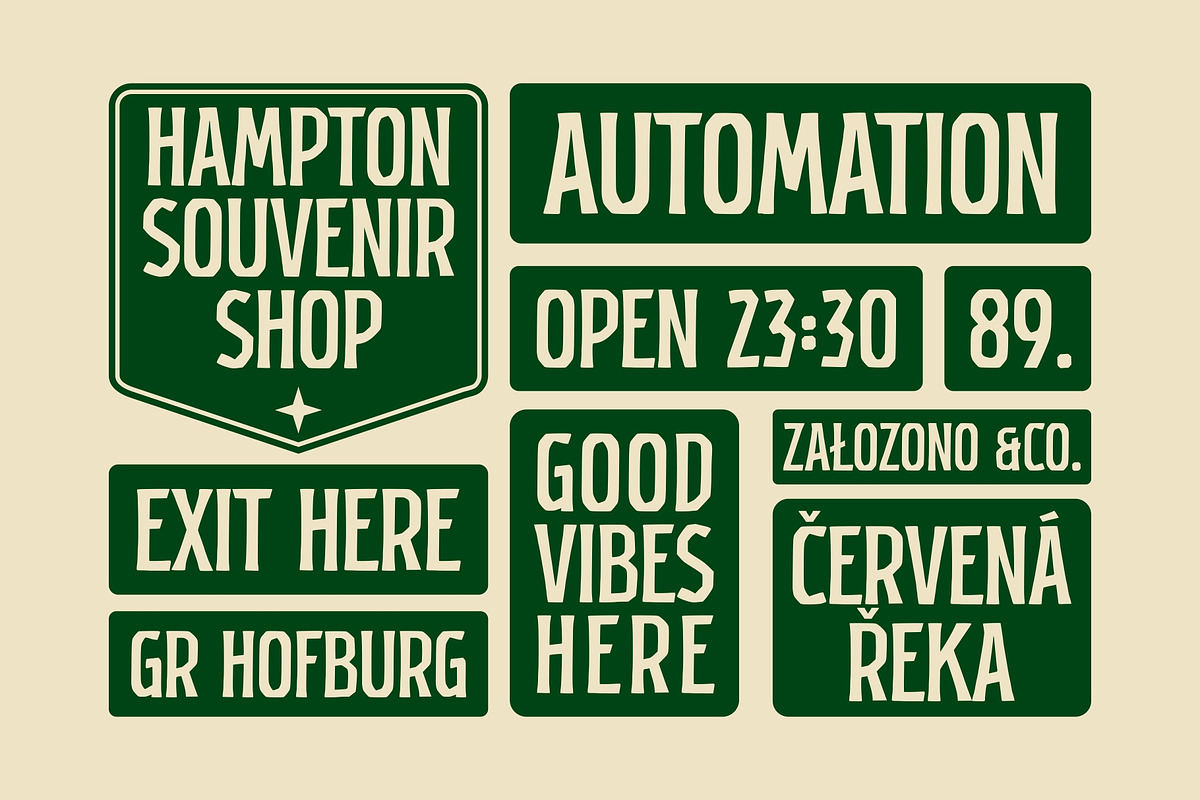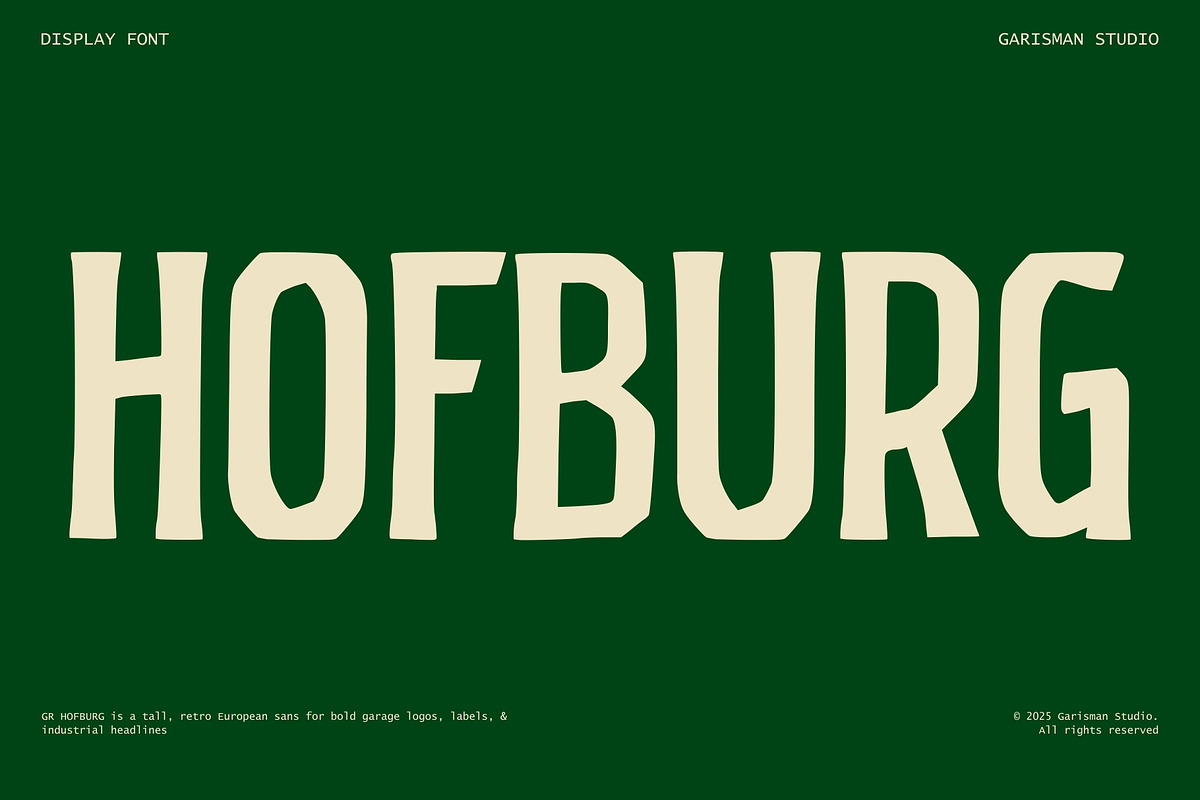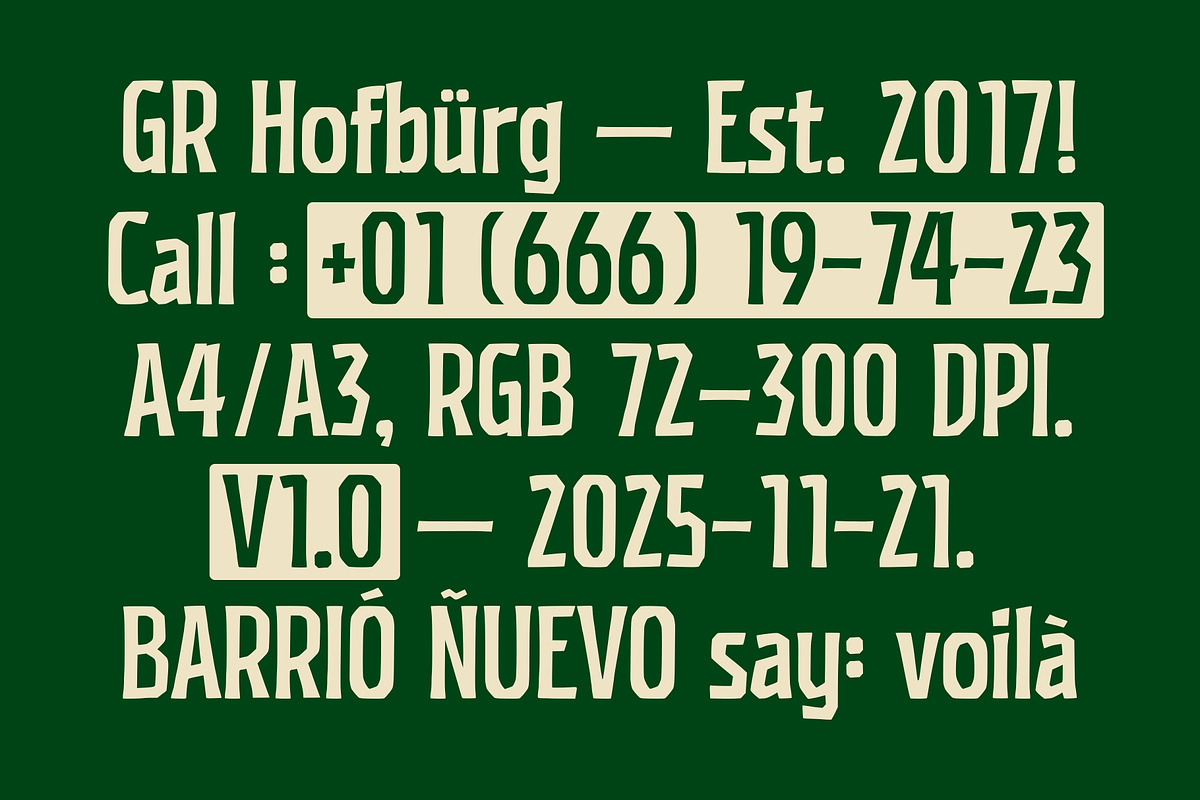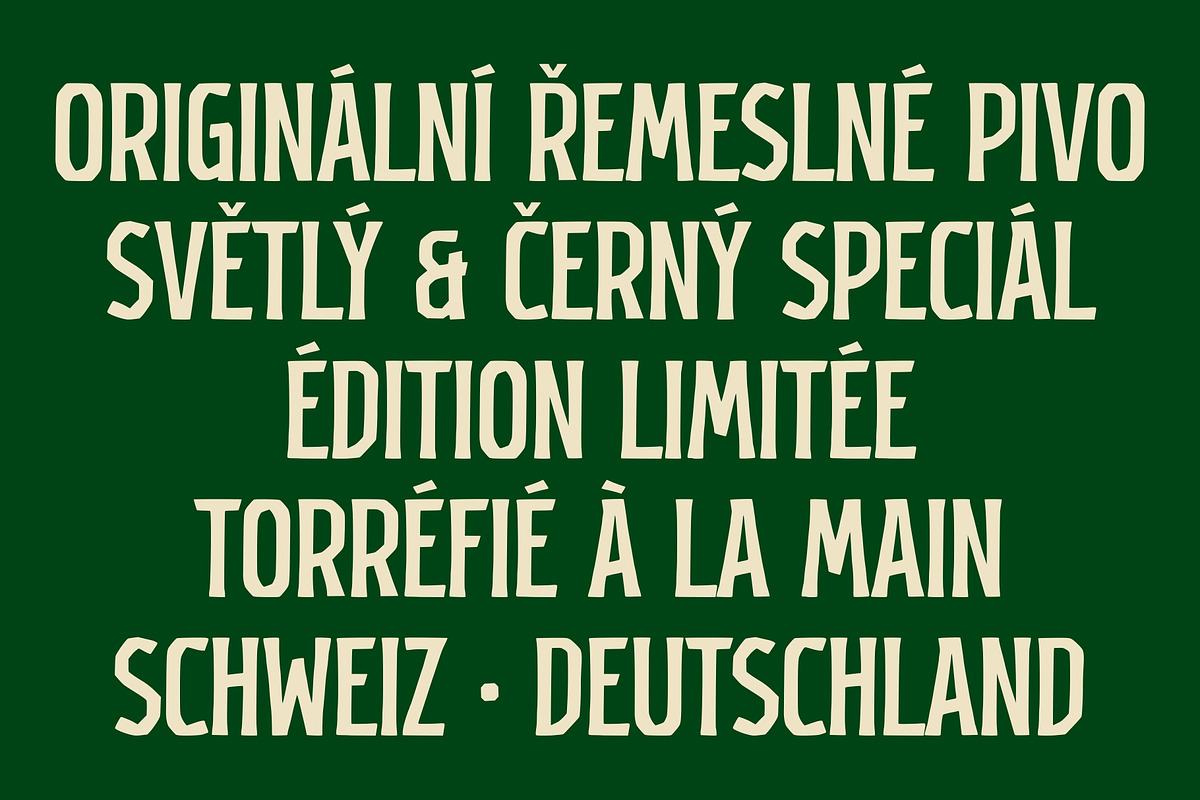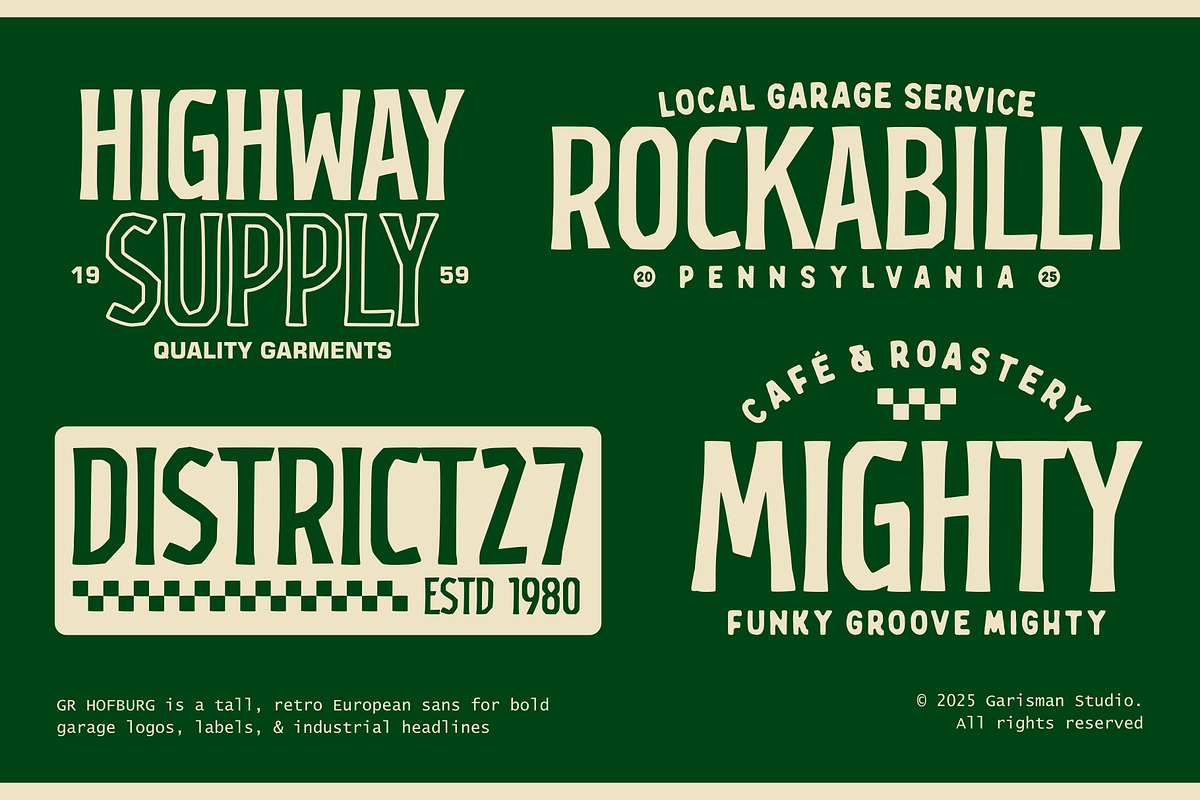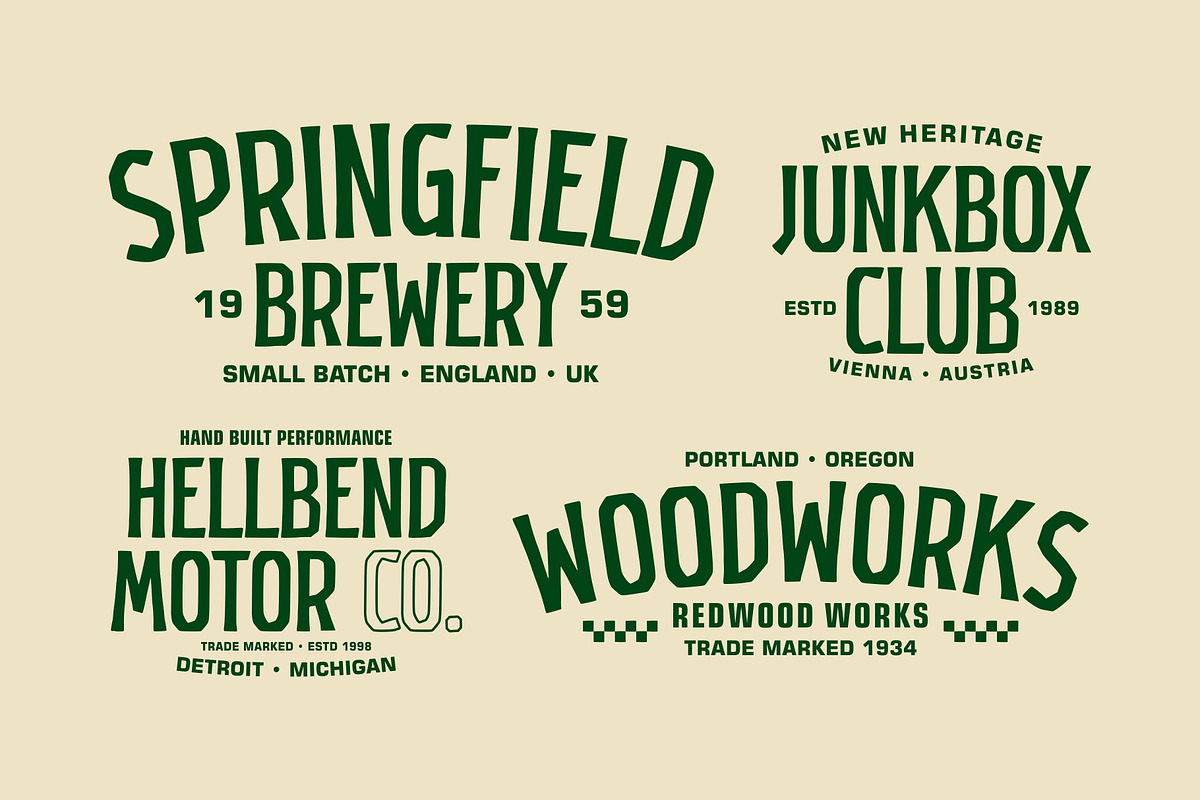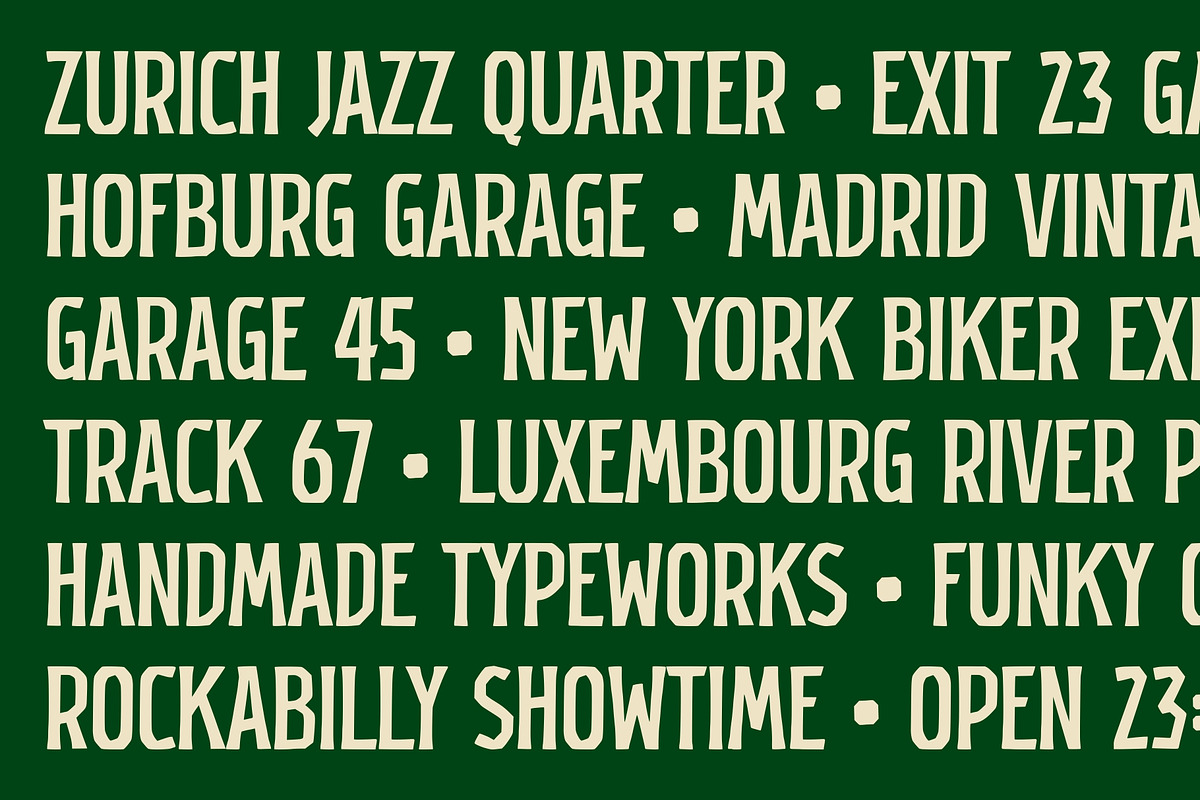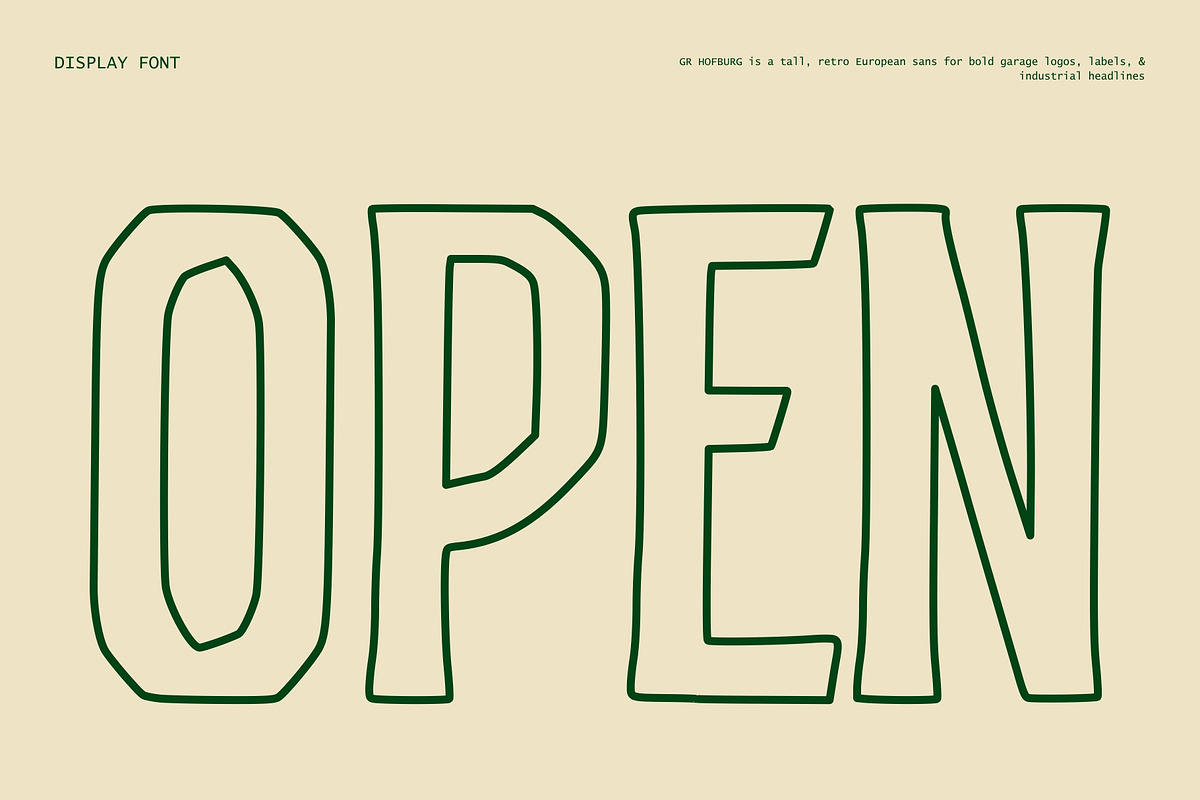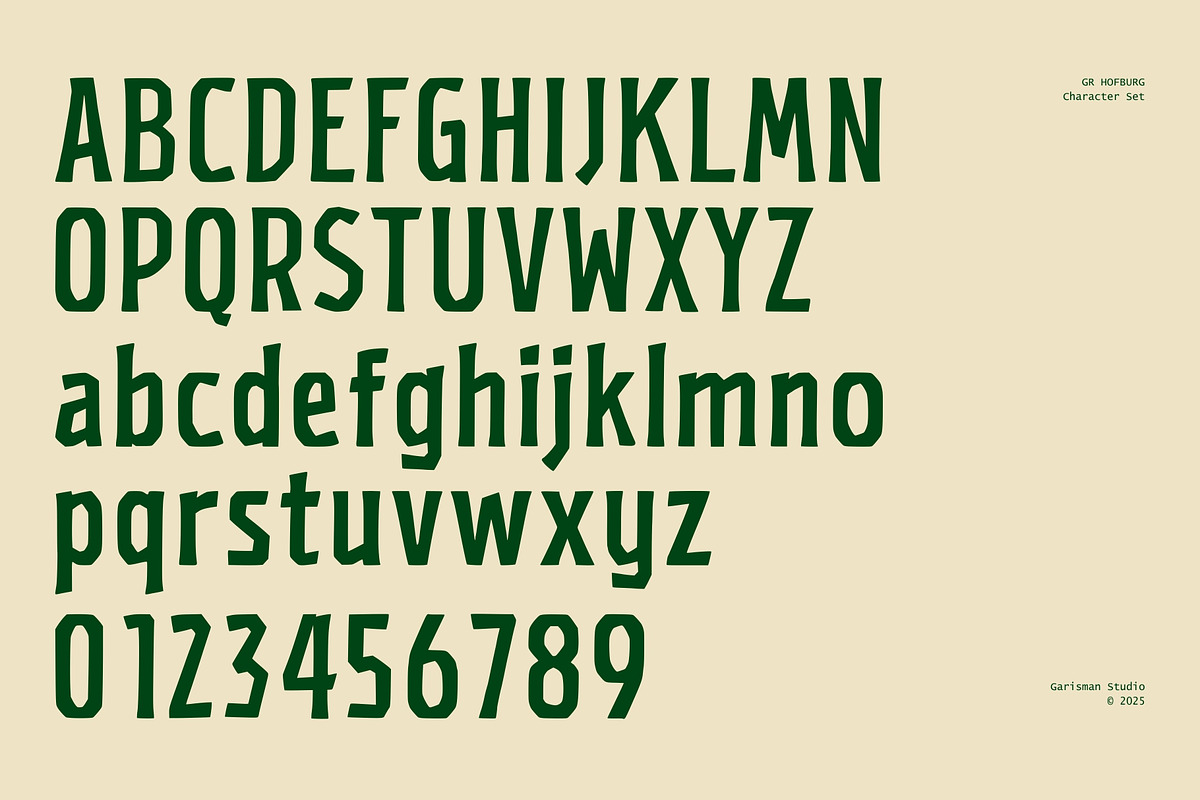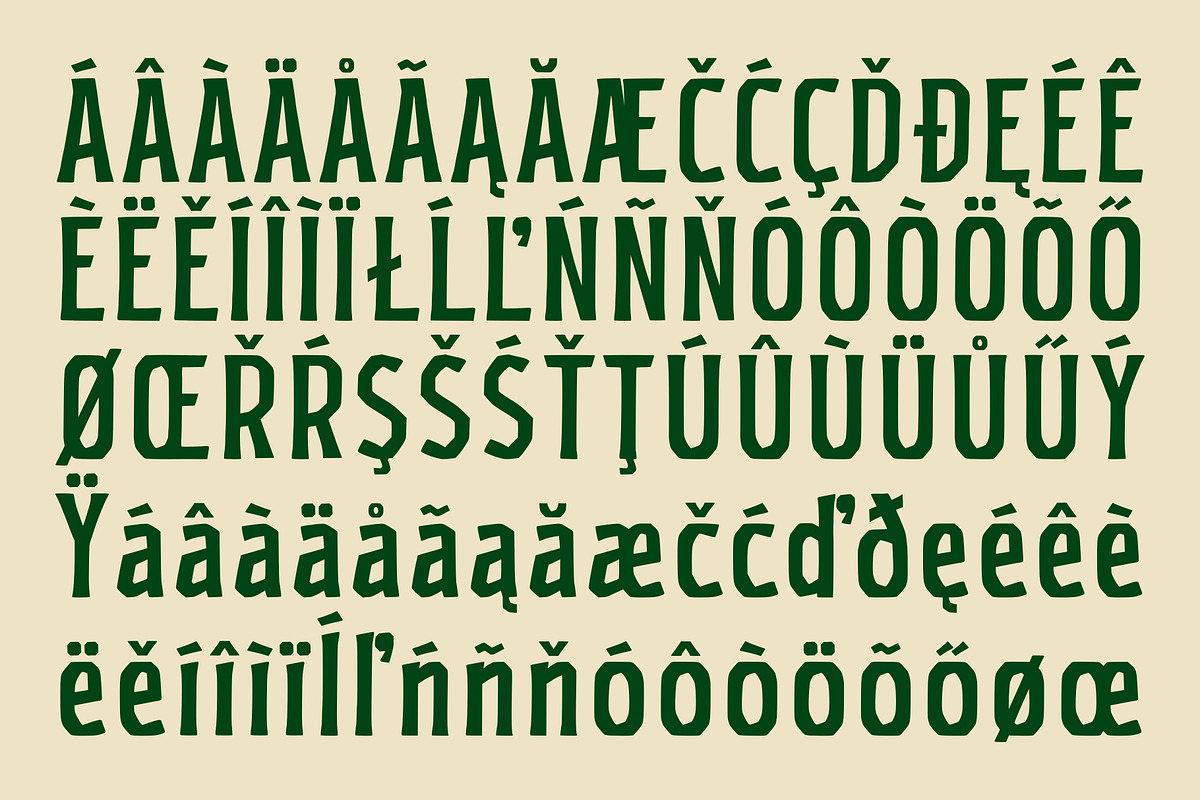
GR HOFBURG – Retro Industrial
GR Hofburg – Retro Condensed Sans Serif Font for Vintage Industrial Design
GR Hofburg is a bold, retro condensed sans serif font inspired by classic European garage signage, industrial factory plates, and old storefront lettering. Its tall, narrow letterforms and slightly soft corners create a strong industrial look while still feeling warm, handmade, and human.
Designed as a display typeface, GR Hofburg works best for logos, badges, beer labels, patches, posters, apparel graphics, and vintage packaging. If you’re building a garage brand, motorcycle workshop identity, workwear label, or craft brewery branding, this retro condensed sans serif font will instantly give your design a confident, vintage industrial character.
The shapes are condensed and bold, making every word look compact and powerful. Subtle irregularities in the strokes keep GR Hofburg from feeling too clean or sterile—perfect for designers who love retro, analog, and sign-painted aesthetics.
If you’re looking for a retro condensed sans serif font with a strong vintage industrial feel, GR Hofburg is a versatile display typeface that will make your branding stand out—whether you design for American workwear labels or European-inspired garage brands.